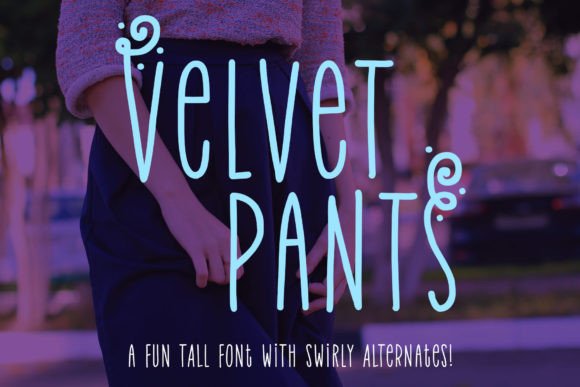
Welcome to the world of Velvet Pants Font, a script font that captivates with its artistic flair and extraordinary versatility. Inspired by the trendy fashion of the same name and fueled by the creative minds at GeekMissy, Velvet Pants Font is a feast for the eyes, ready to transform your digital creations into visual masterpieces.
Tall and narrow, with generously spaced letters, it's a distinctive font that adds an aura of sophisticated elegance to any project. Just like a perfectly fitted pair of velvet pants, this font elevates your designs with a sleek and stylish touch.
But Velvet Pants Font isn't just a pretty face. It's also a font with a playful side, featuring a collection of alternate uppercase letters adorned with whimsical swirls. Use these special characters sparingly for emphasis or let them dance across an entire word, adding a touch of whimsy to your designs.
Dive into the depths of this font's character set and discover a treasure trove of typographic possibilities. From the basic A-Z and a-z alphabet sets to numbers and essential Latin punctuation, Velvet Pants Font has everything you need to make your words sing.
But that's not all! Double-letter ligatures, stylistic alternates, and swirly party alternates add an extra layer of creative flair, allowing you to explore endless design possibilities. Mix and match characters, experiment with different combinations, and let your creativity soar.